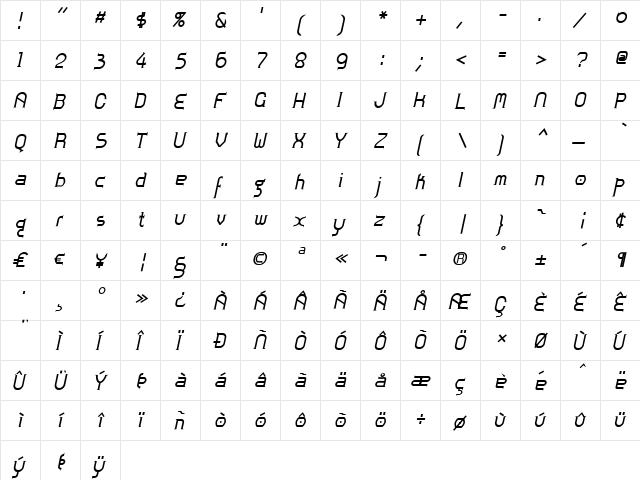
Zoloft BoldItalic
Design Context for Zoloft Typeface
Zoloft is a composed and adaptable typeface that performs quietly and consistently across a wide range of design contexts. The slanted form adds forward momentum and visual energy. Its bold stroke weight gives it real presence on the page.
Pro Tip: Use Zoloft for emphasis, pull quotes, and subheadings where its slanted energy can add rhythm to the layout.